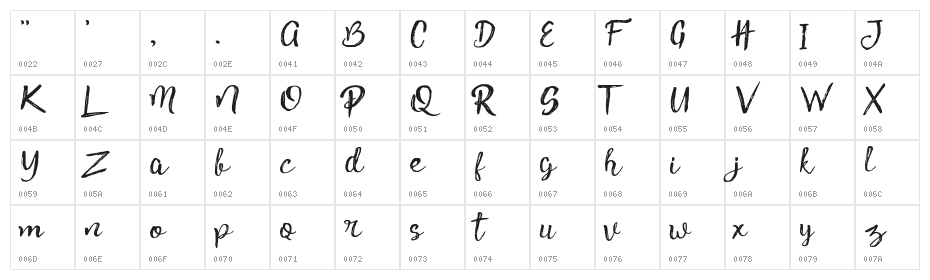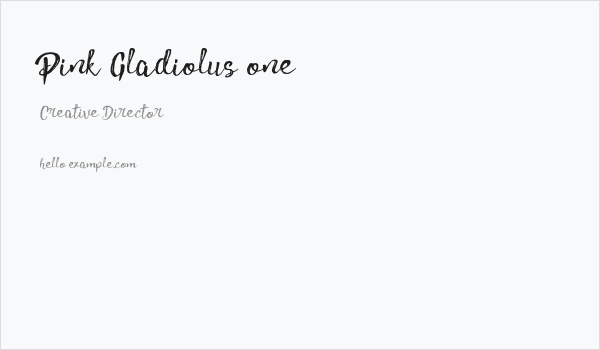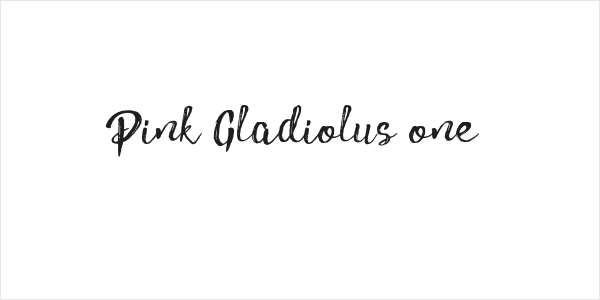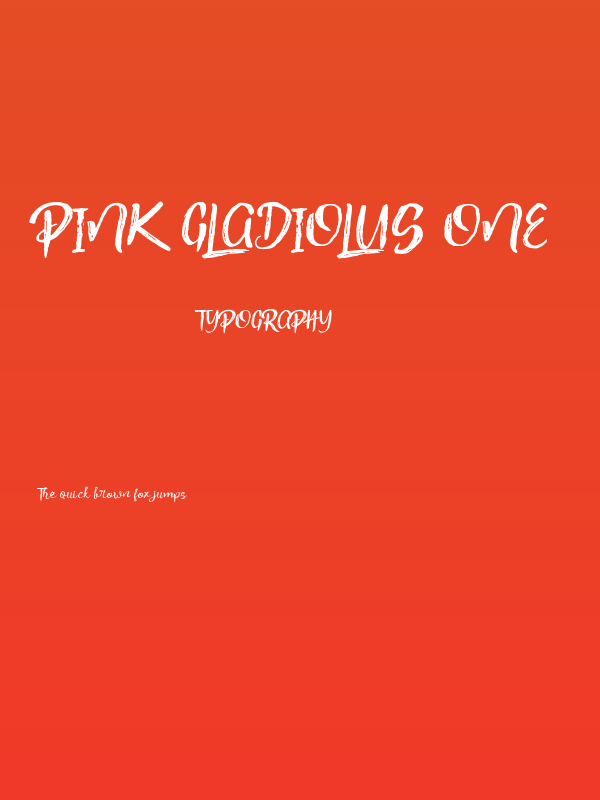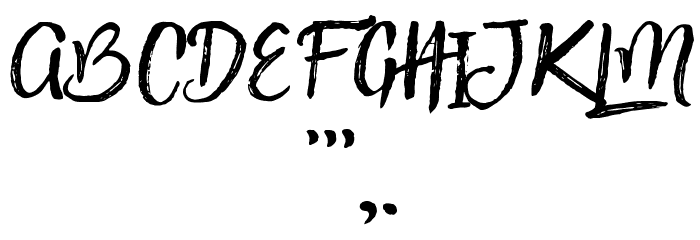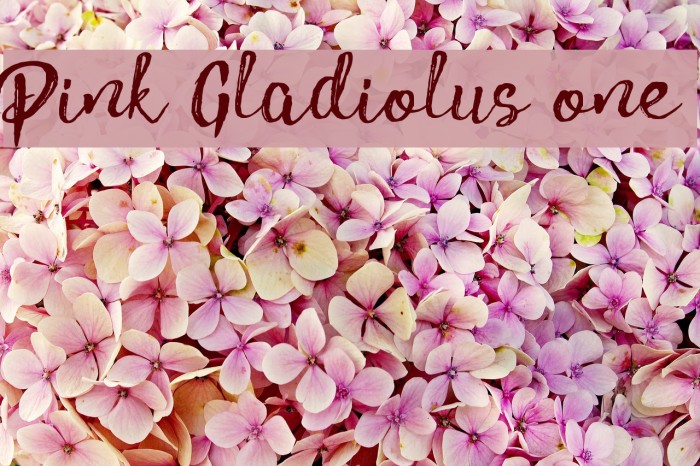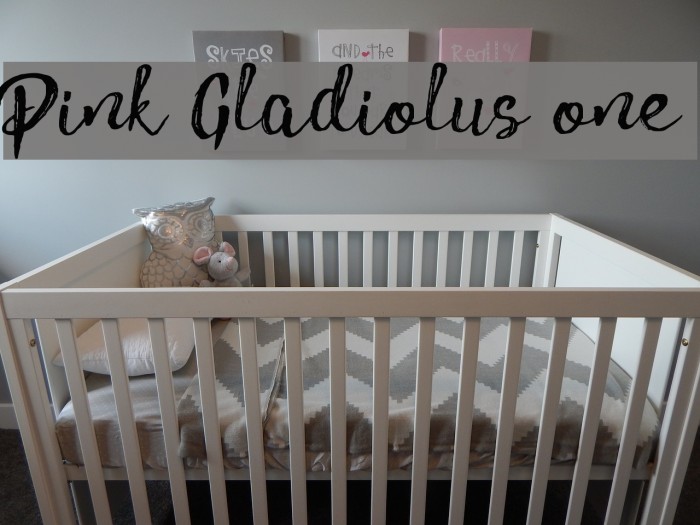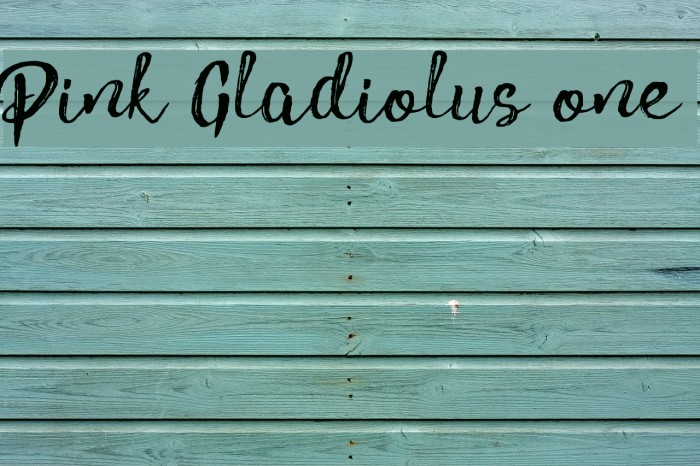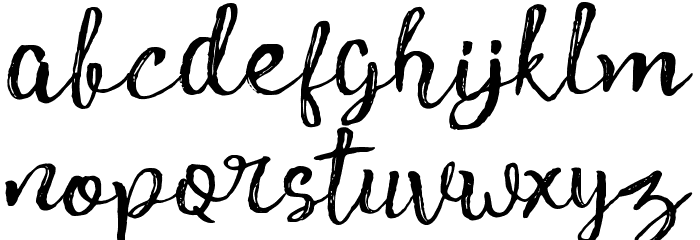
Pink Gladiolus one Font
This font exhibits a bold and expressive handwritten style, characterized by its brush-like strokes and dynamic flow. The uppercase letters are particularly striking, with a sense of movement and energy that suggests a casual yet artistic flair. The lowercase letters maintain this fluidity, offering a cohesive and harmonious look. The font's texture gives it a slightly rough, organic feel, adding to its charm and uniqueness. It is well-suited for creative projects that require a personal touch, such as invitations, posters, or branding materials. The overall appearance is both modern and artistic, making it versatile for various design needs.